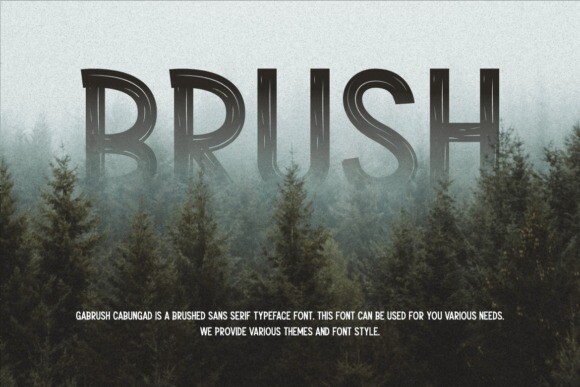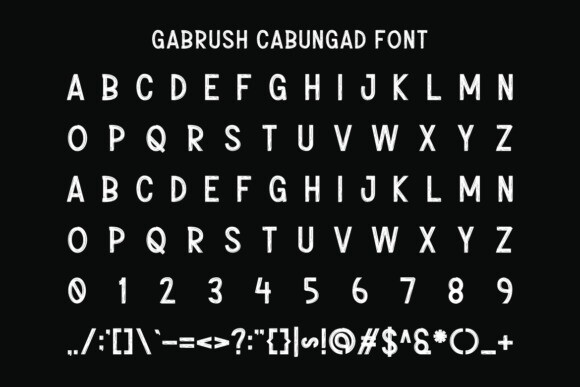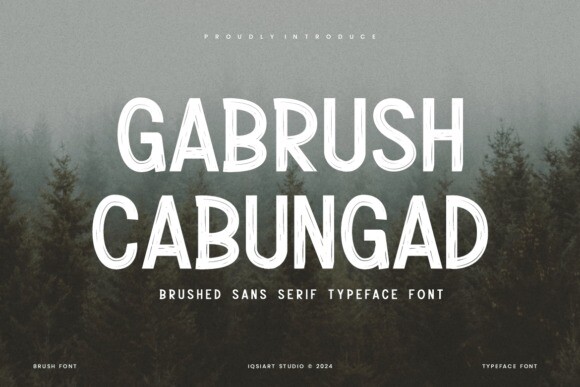
Gabrush Cabungad Font
Gabrush Cabungad Font is a brushed sans serif font with a bold and artistic style. It combines smooth curves and brush-like strokes, making it perfect for creative designs like posters, logos, or branding. The font has a modern yet handcrafted look, adding personality to your text.